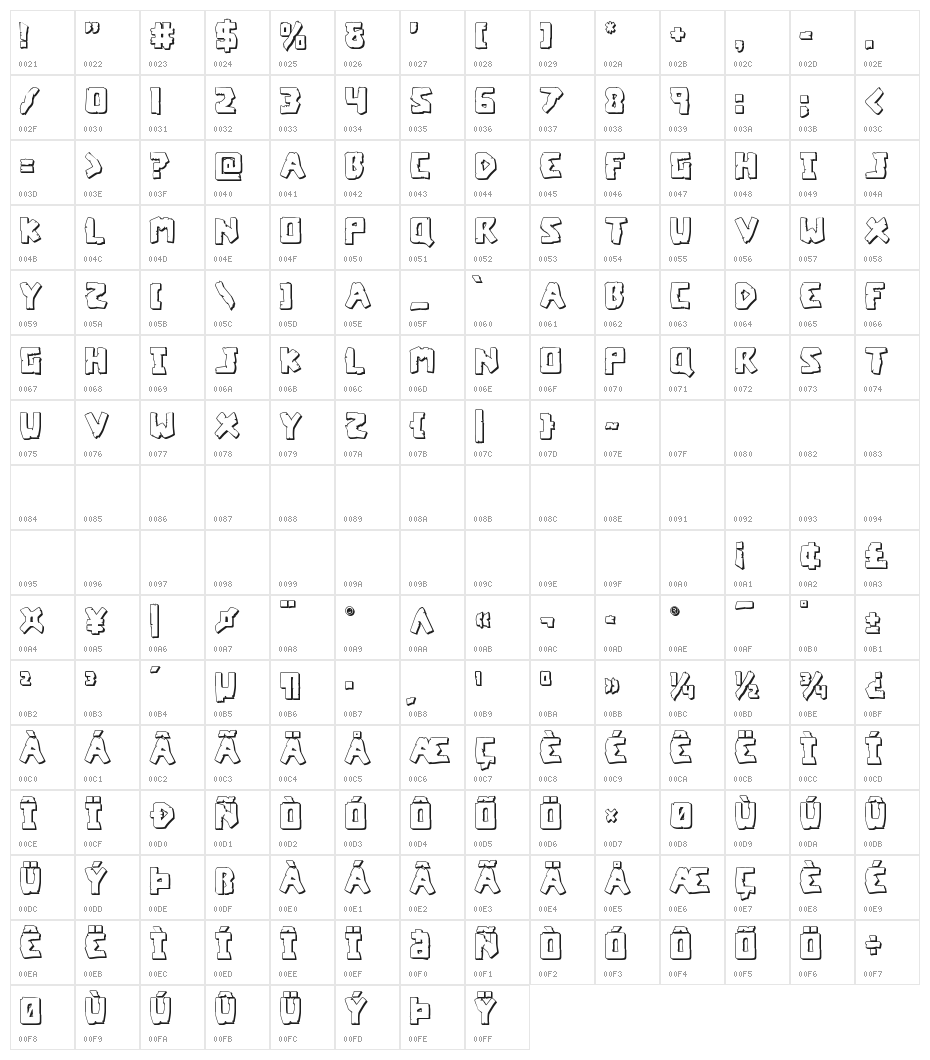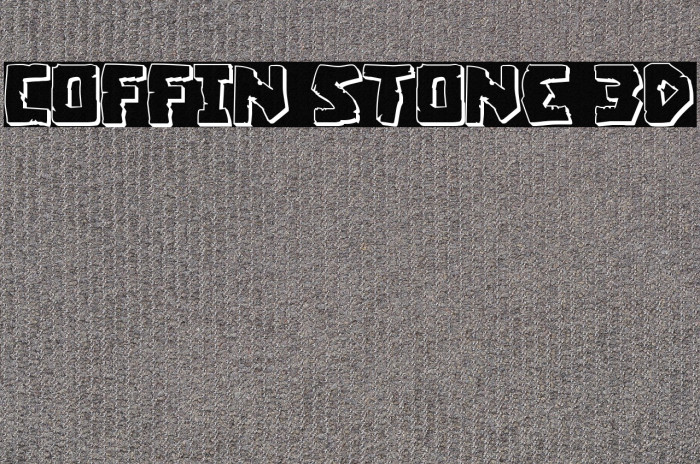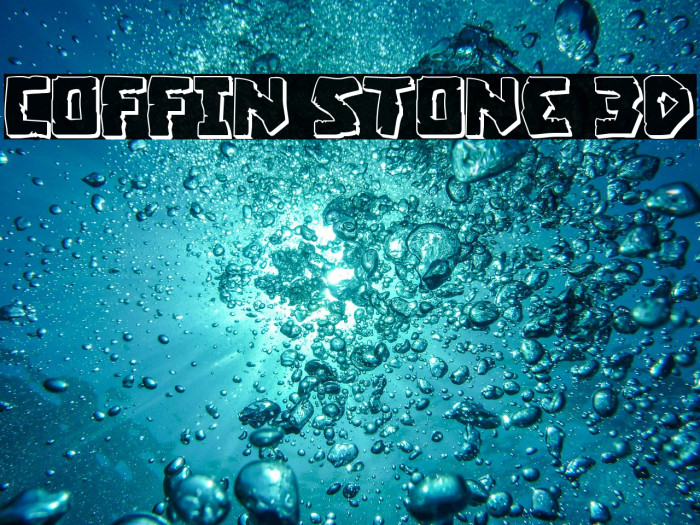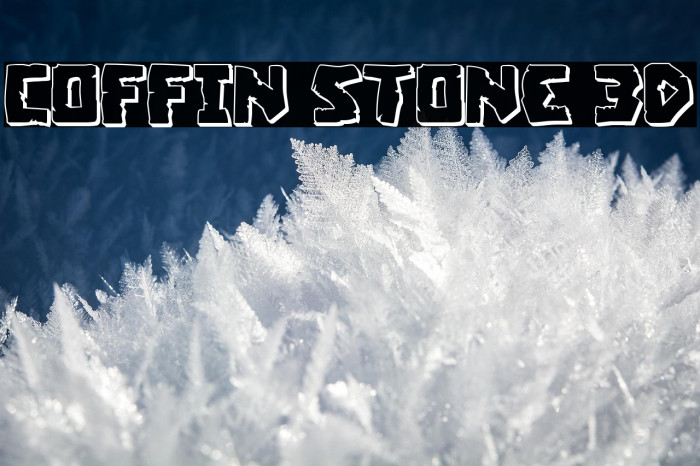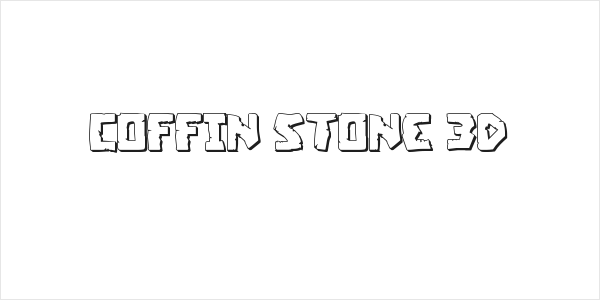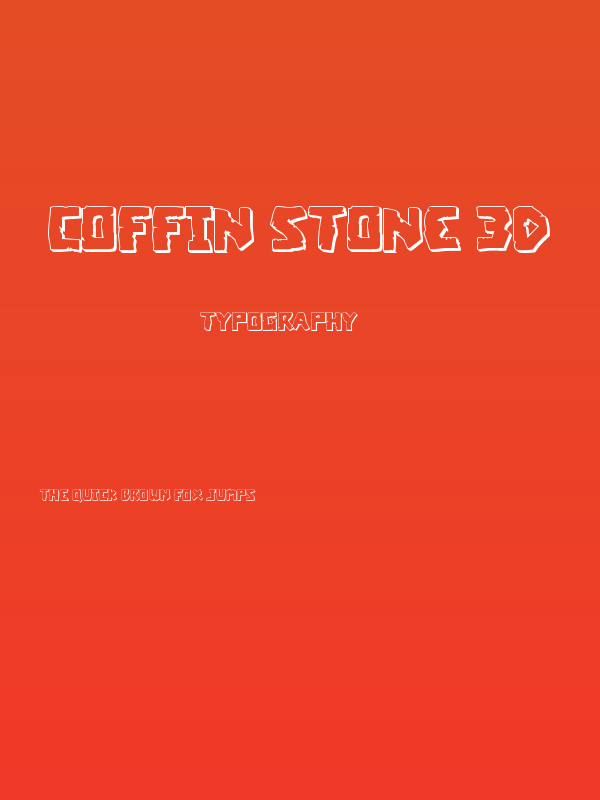
Coffin Stone 3D Font
Coffin Stone 3D Description
This font features a rugged, stone-like appearance with a three-dimensional effect. The characters are bold and have a chiseled look, giving them a unique, textured style. The edges are irregular, mimicking the natural imperfections of stone, which adds to its distinctive aesthetic. The uppercase and lowercase letters maintain a consistent style, with numbers and special characters following suit. This font is ideal for projects that require a bold, impactful look with a touch of ruggedness.
| Proposed Projects | Ideal for video game titles, movie posters, adventure-themed branding, or any project needing a strong, textured font. |